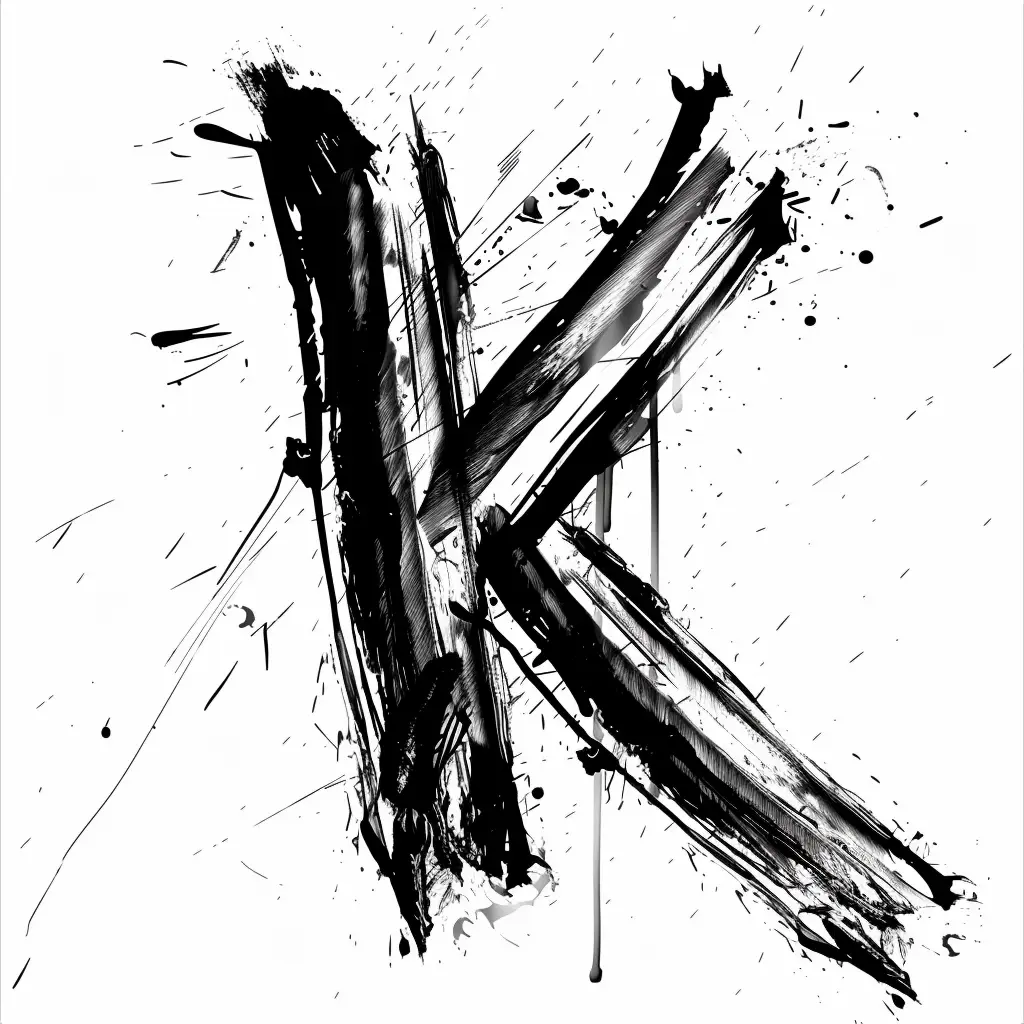
This image features a bold, abstract representation of the letter "K" rendered in black ink against a white background. The style is expressive and dynamic, with thick, textured brushstrokes, splatters, and drips creating a raw, artistic feel. Visual elements like scattered ink spots and uneven lines enhance the chaotic, energetic aesthetic.